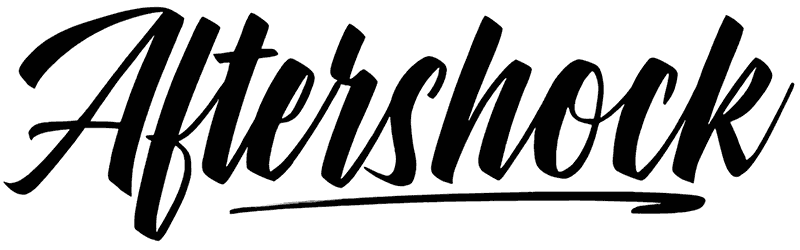
Aftershock Font
Designed byOctotype Thomas Boucherie
Aftershock font with tight cursive lines with a bit of unreadable letters is in the group of hand-written fonts. This script font is the best choice for designing banners and posters for martial arts such as kung fu and judo and can attract the audience with even a few words and have a busy class.